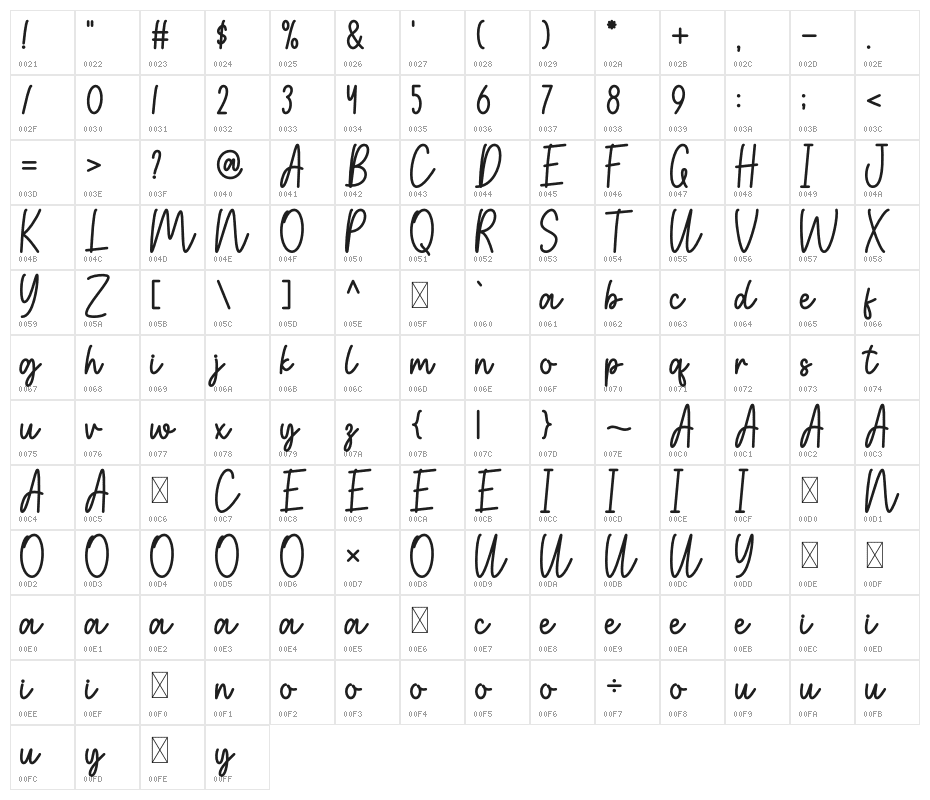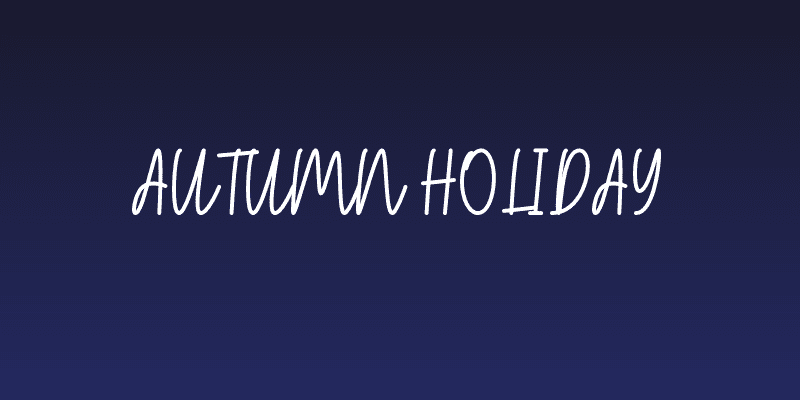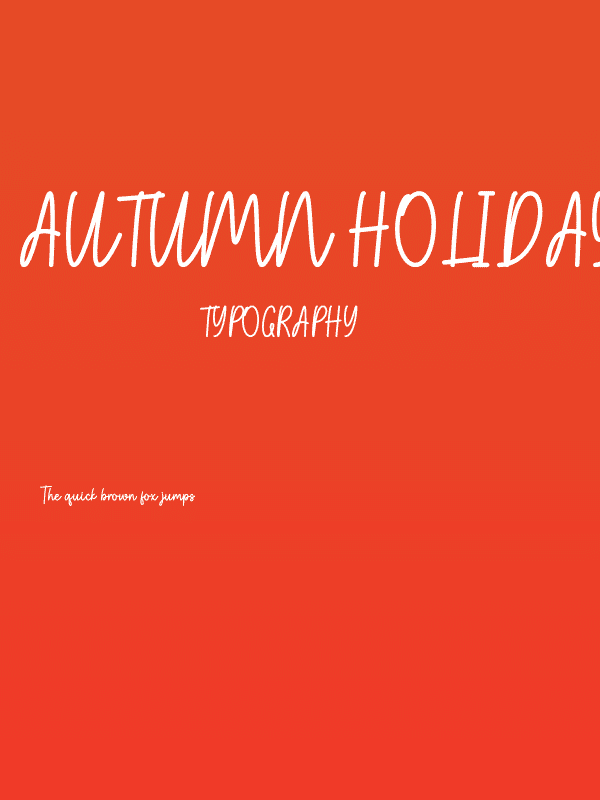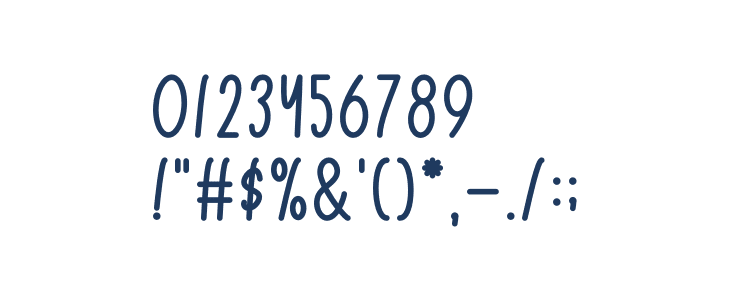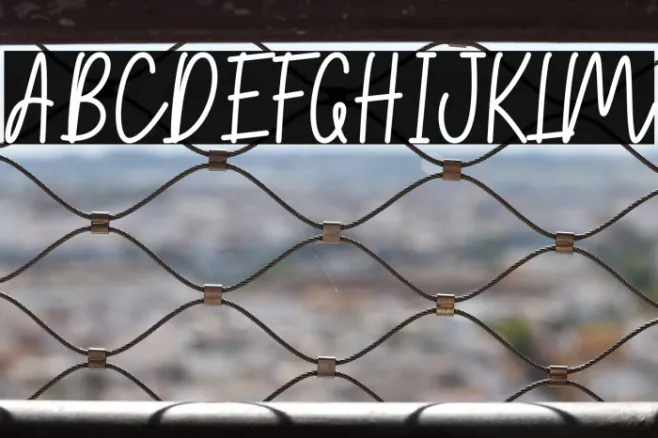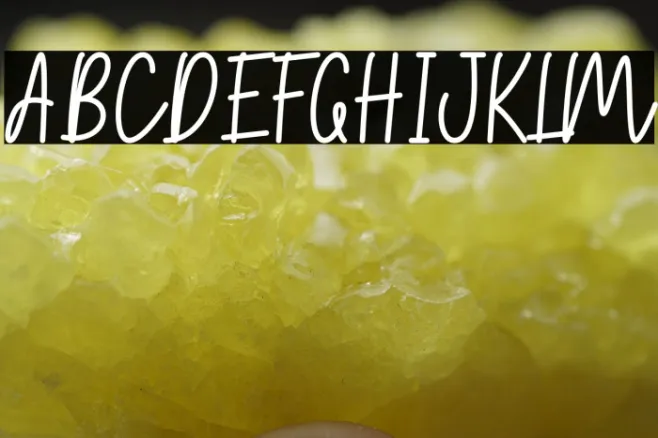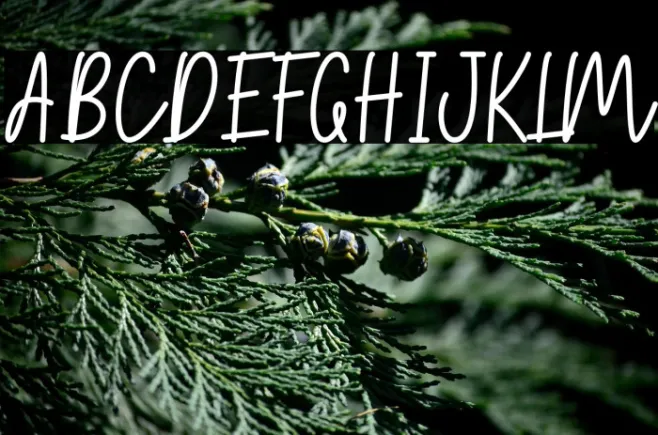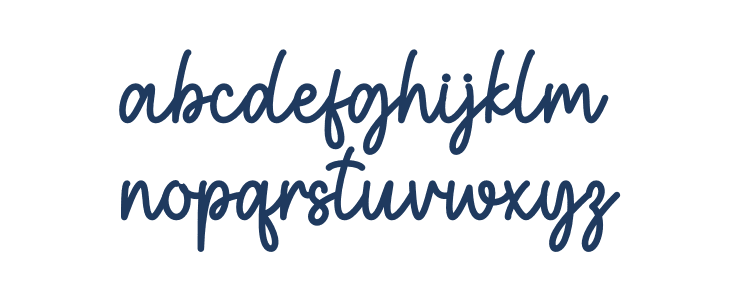
Autumn Holiday Font
Autumn Holiday Description
This font features a playful and casual handwritten style, characterized by its fluid and smooth strokes. The uppercase letters are tall and slightly narrow, with a consistent slant that adds a dynamic feel. The lowercase letters are more rounded and maintain a cohesive flow, enhancing the font's approachable and friendly appearance. Numbers are clear and legible, maintaining the same playful style as the letters. Special characters are well-integrated, ensuring versatility in various design contexts. Overall, this font exudes a sense of warmth and creativity, making it suitable for projects that require a personal touch.
| Proposed Projects | Ideal for greeting cards, invitations, personal branding, and social media graphics. |